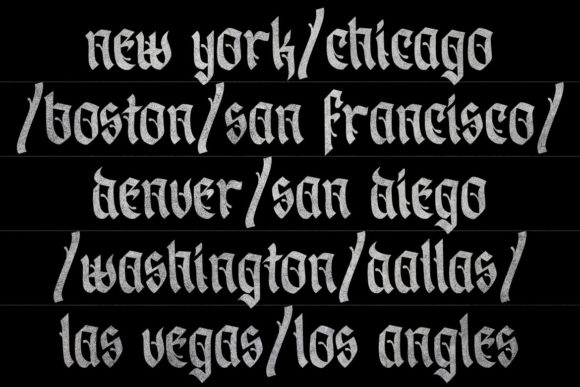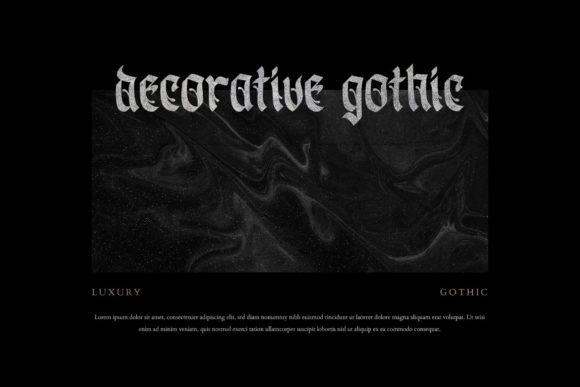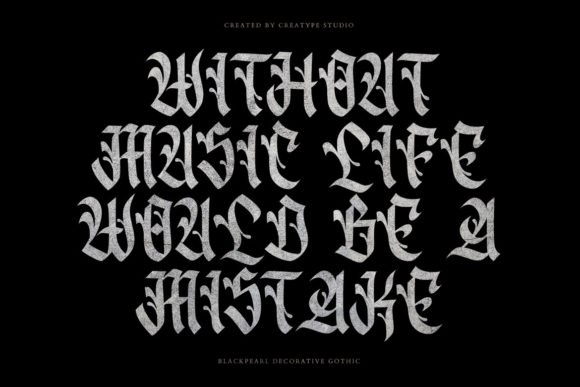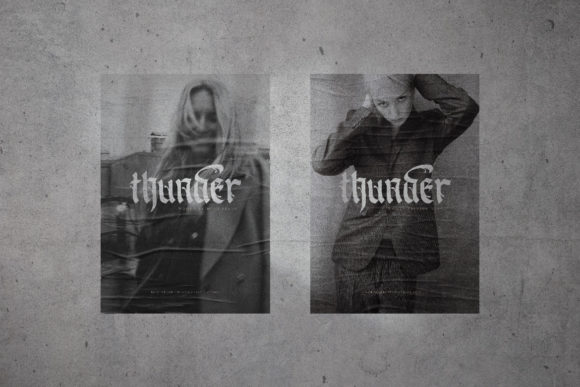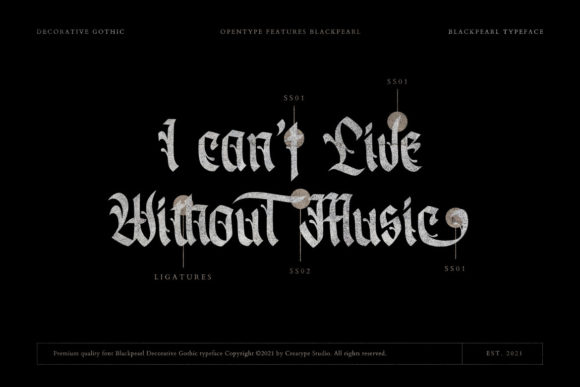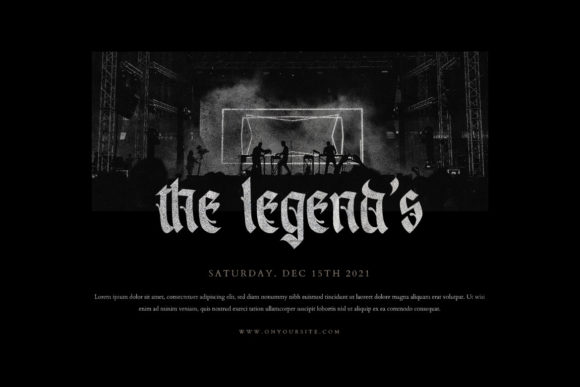
The Ultimate Guide to Blackpearl Font: A Gothic-Inspired Design Powerhouse
I’ll never forget the time I was working on a branding project for a client who wanted a bold, gothic-inspired look. I spent hours scouring the internet for the perfect font, but nothing seemed quite right. That was until I stumbled upon Blackpearl Font. ✨ This cool and gothic-inspired blackletter font has been a game-changer for my design work, and I’m excited to share its awesomeness with you.
An Honest Review of Blackpearl Font
- 💯 PUA encoded for easy access to all glyphs and swashes
- 🎨 Perfect for branding projects, logos, wedding designs, social media posts, advertisements, product packaging, and more
- 🖌️ Gothic-inspired design with a unique and eye-catching style
- 👍 Highly versatile and adaptable to various design contexts
While Blackpearl Font is an amazing design tool, there are a few things to keep in mind: 🤔
- ⚠️ Some users may find the font a bit overwhelming for small text sizes or body text
- ⚠️ The font’s intricate details may not render well on low-resolution screens or images
The Backstory of Blackpearl Font
Legend has it that Blackpearl Font was inspired by the mysterious and alluring world of Gothic architecture. 💀 The font’s creator wanted to capture the essence of ancient stone carvings and mystical symbols, distilling them into a modern design powerhouse.
A: PUA (Private Use Area) encoding allows font creators to include additional glyphs and swashes that aren’t part of the standard Unicode character set. This means you can access a wider range of design elements and customize your text to a greater extent. 💻
Q: How do I access the glyphs and swashes in Blackpearl Font?